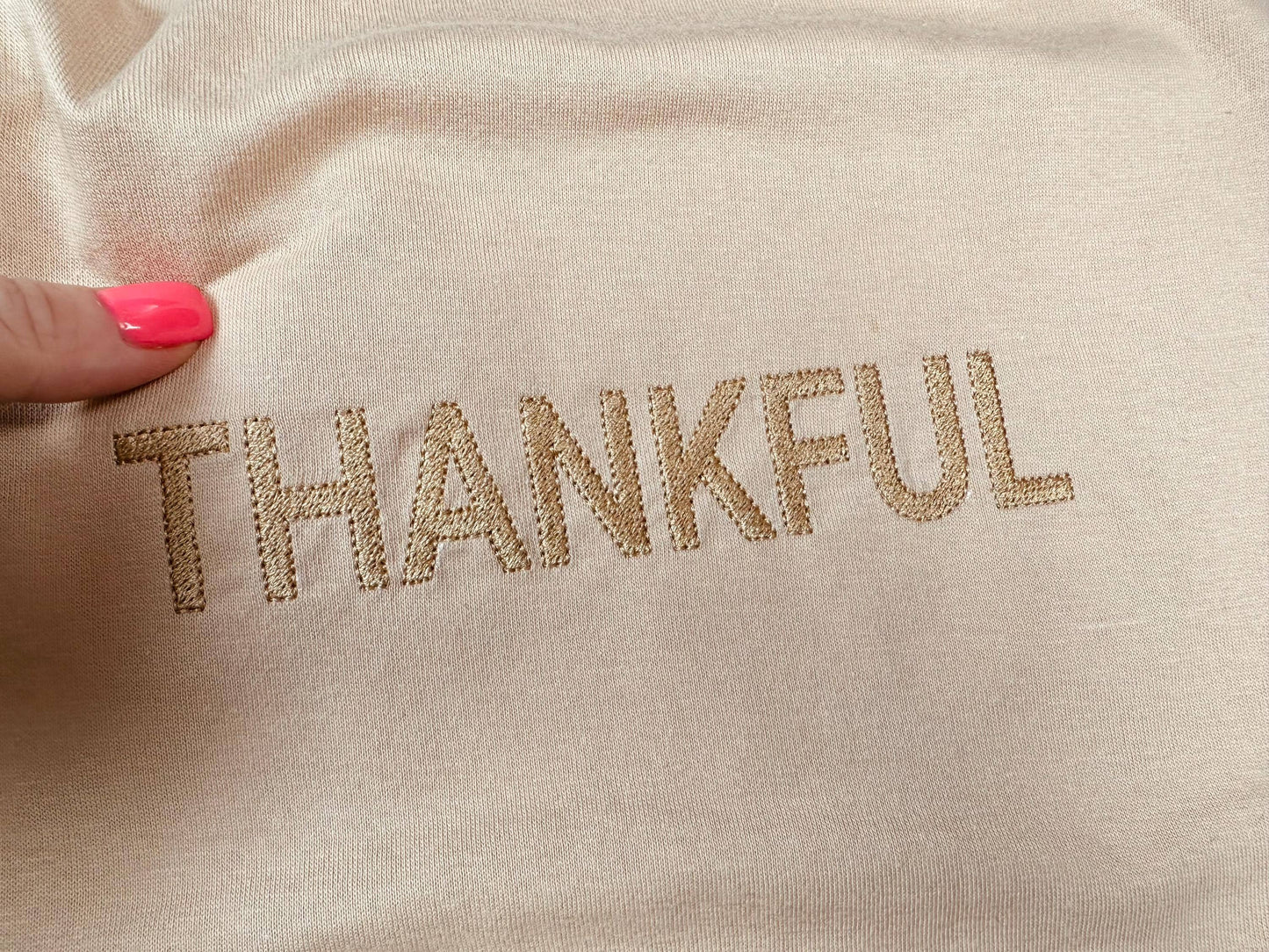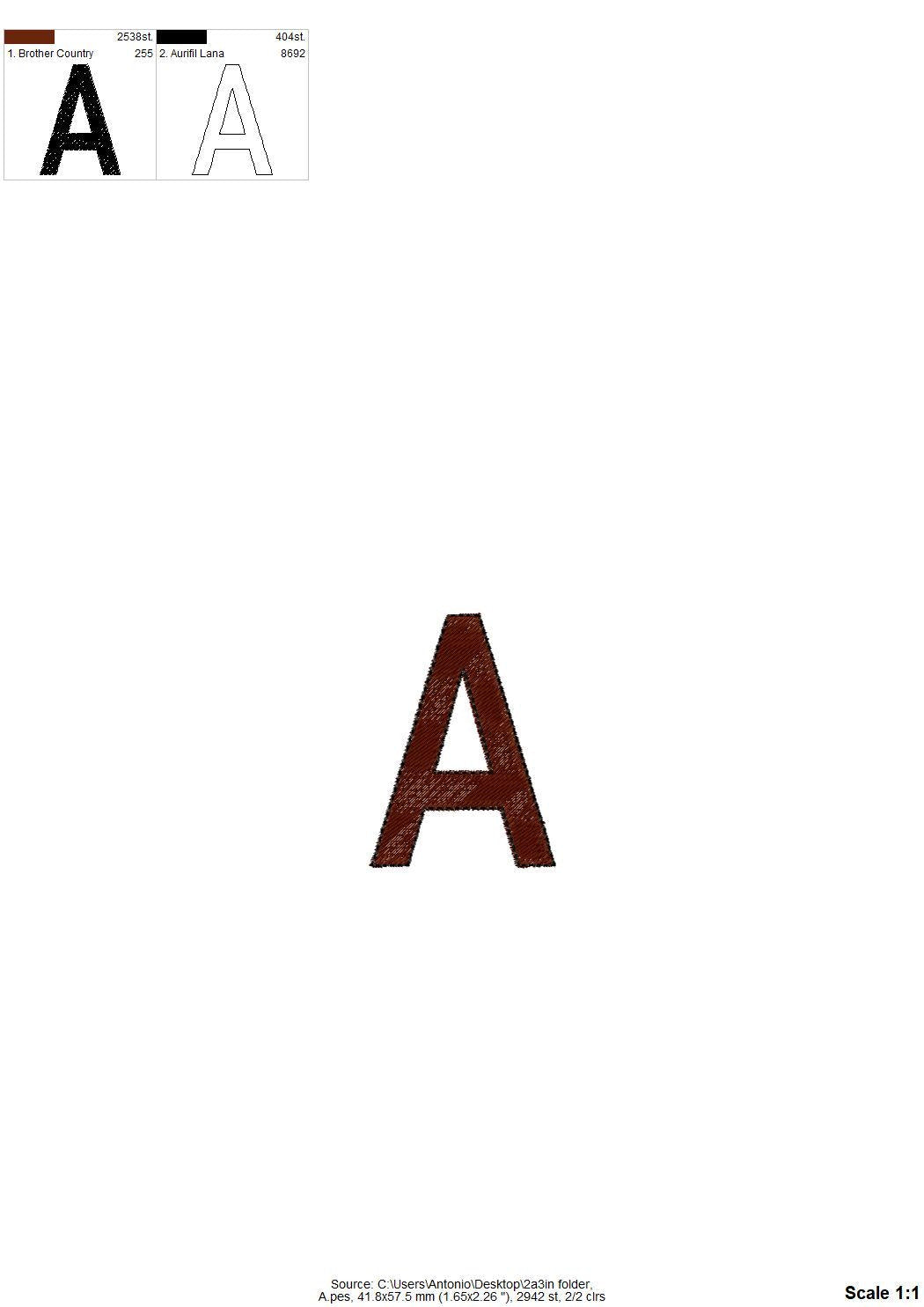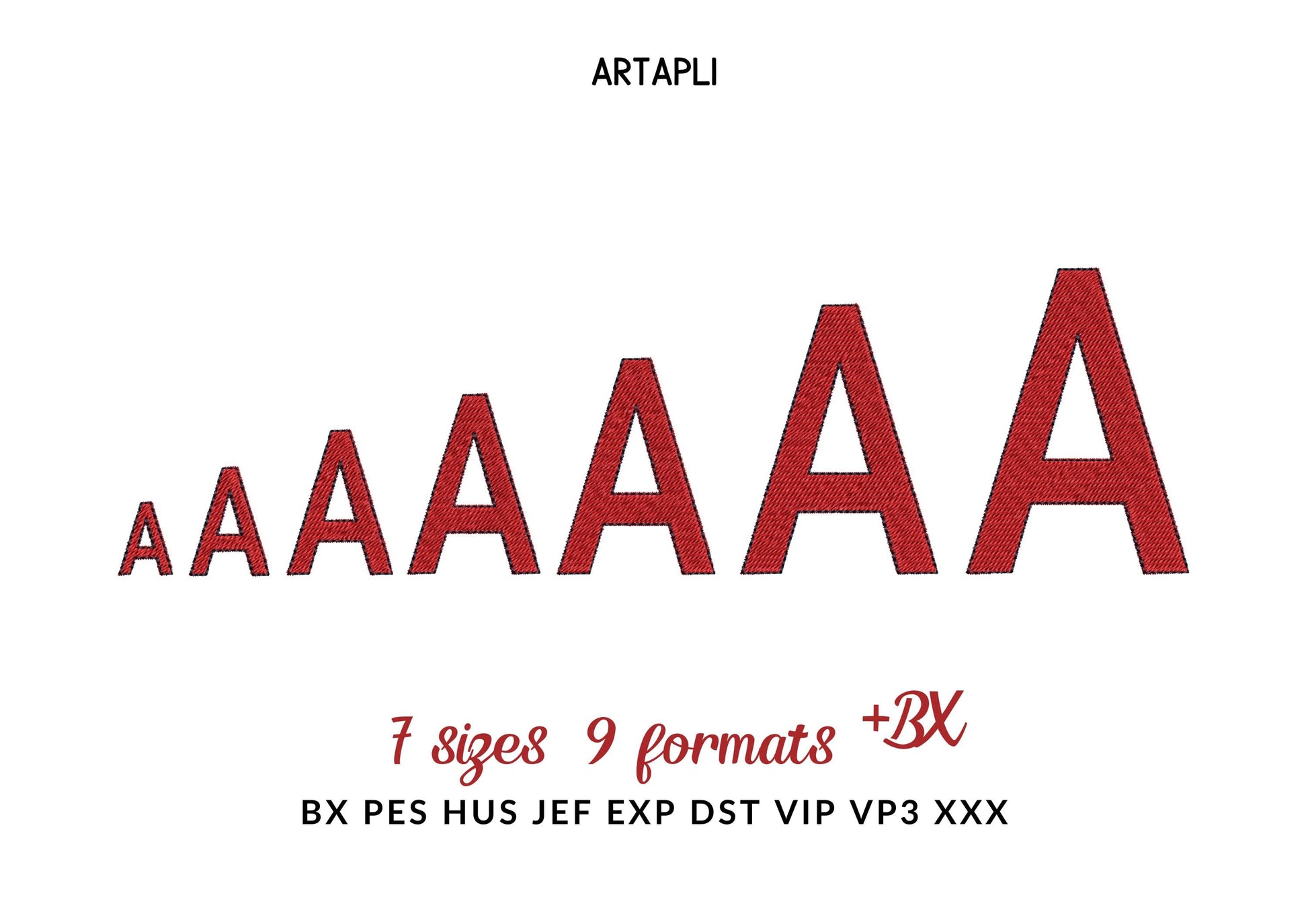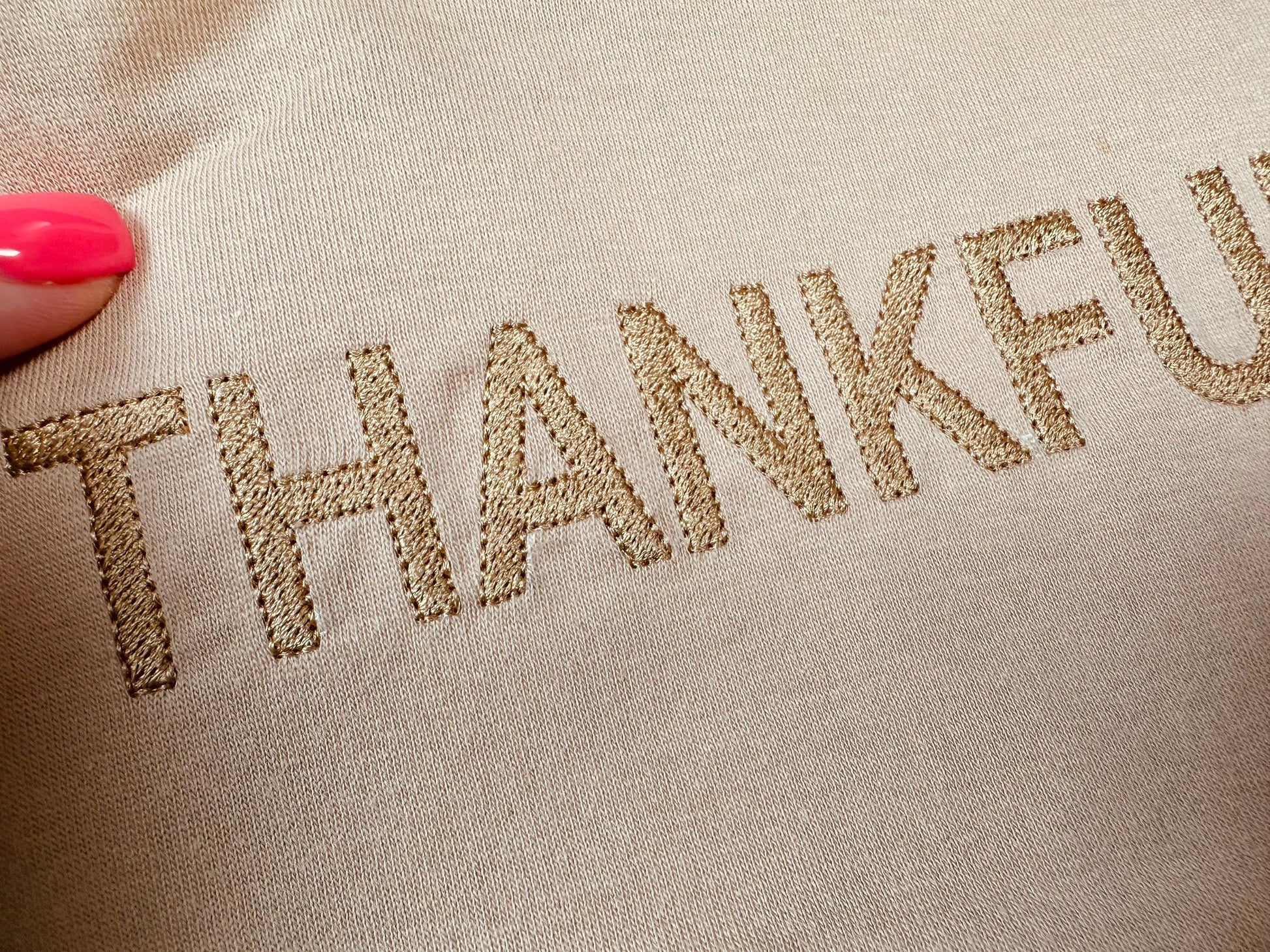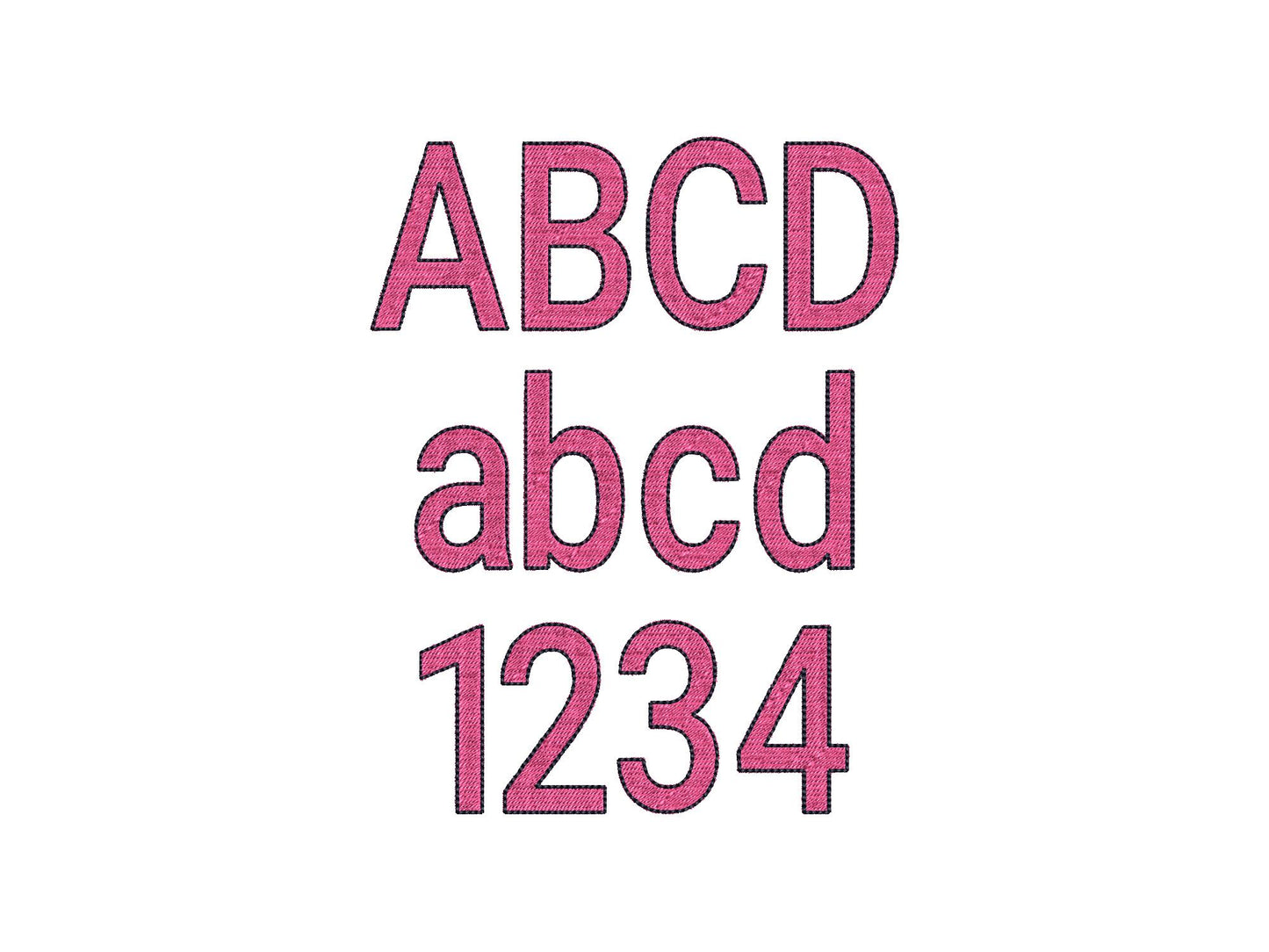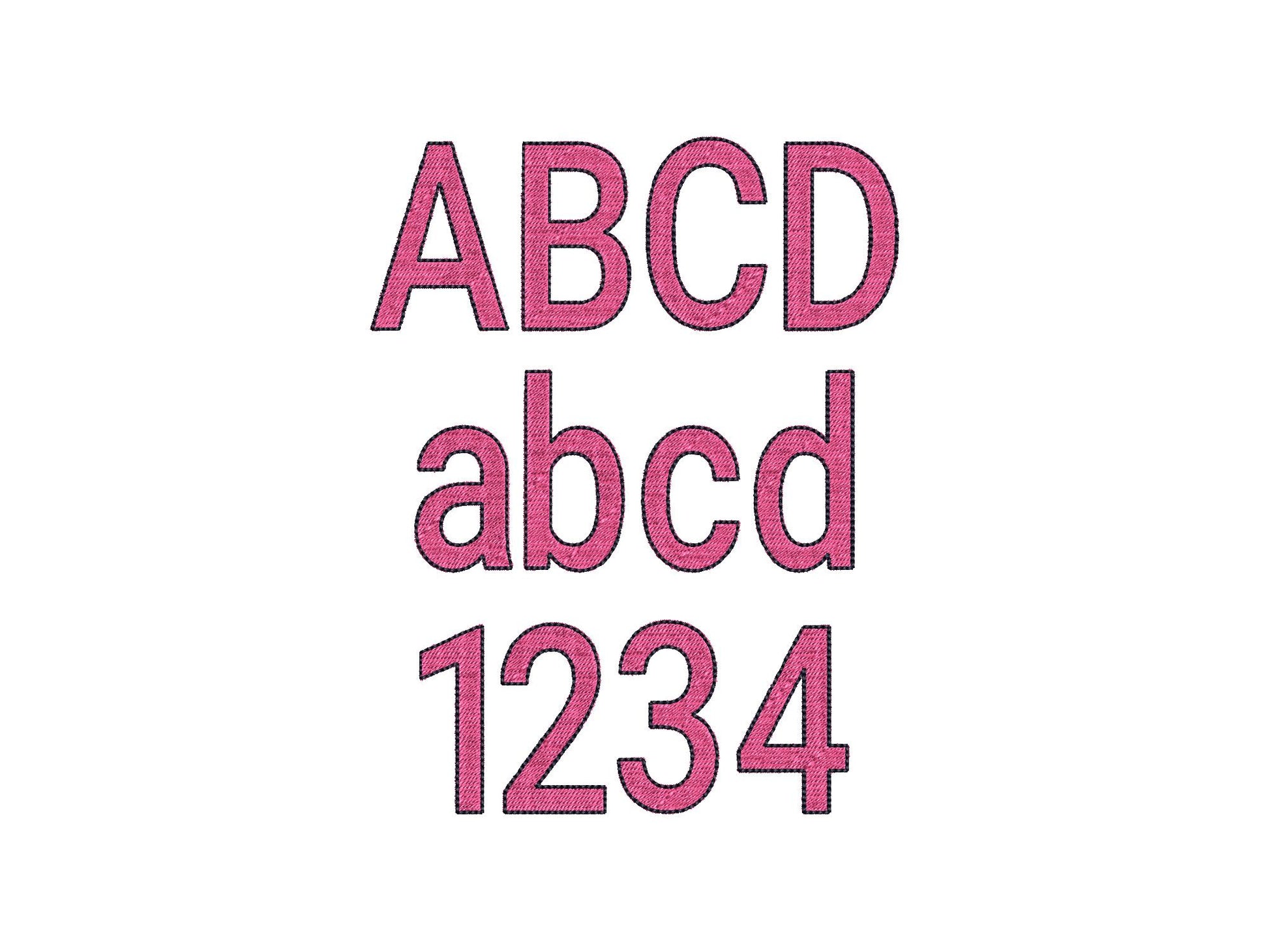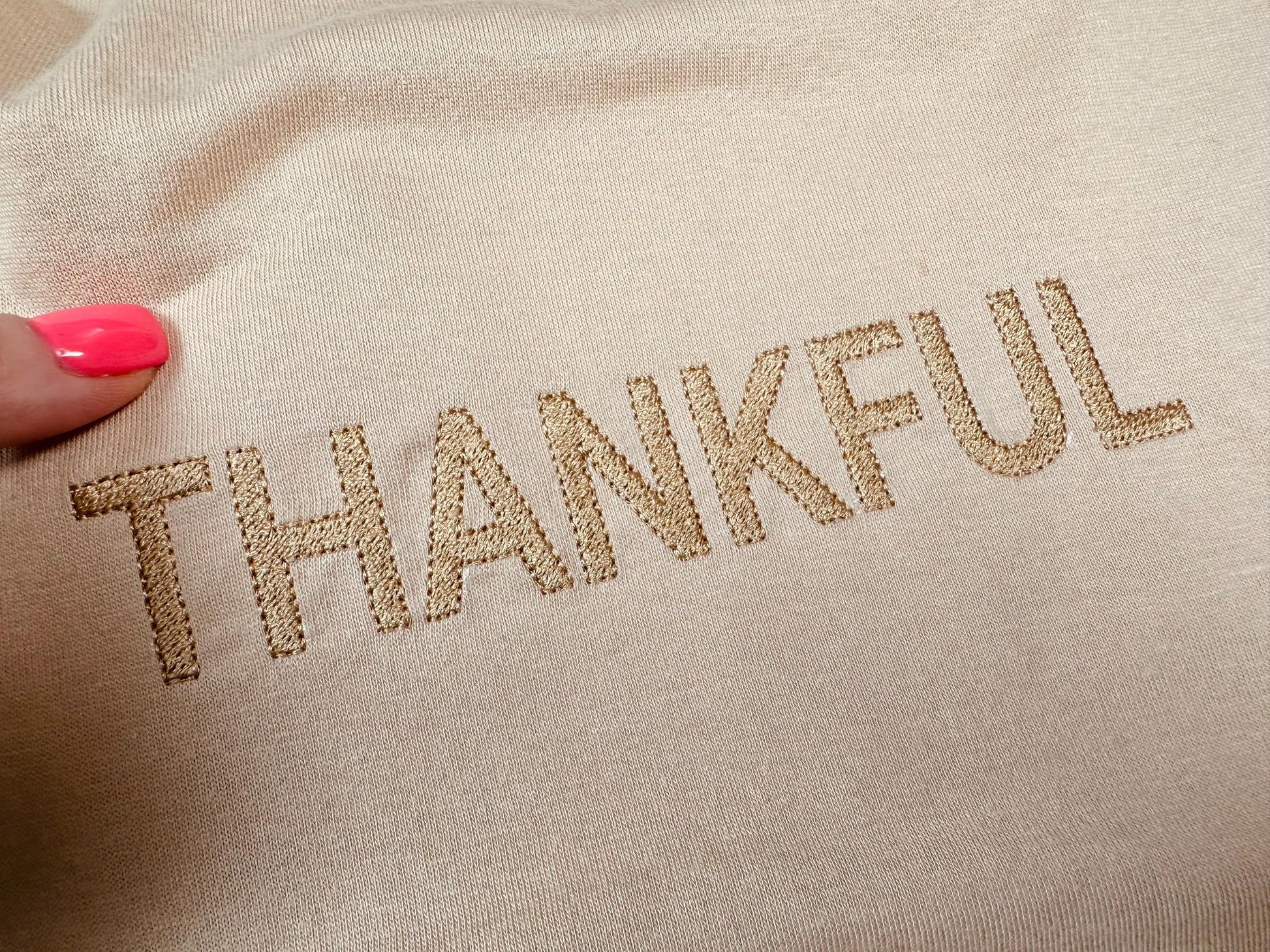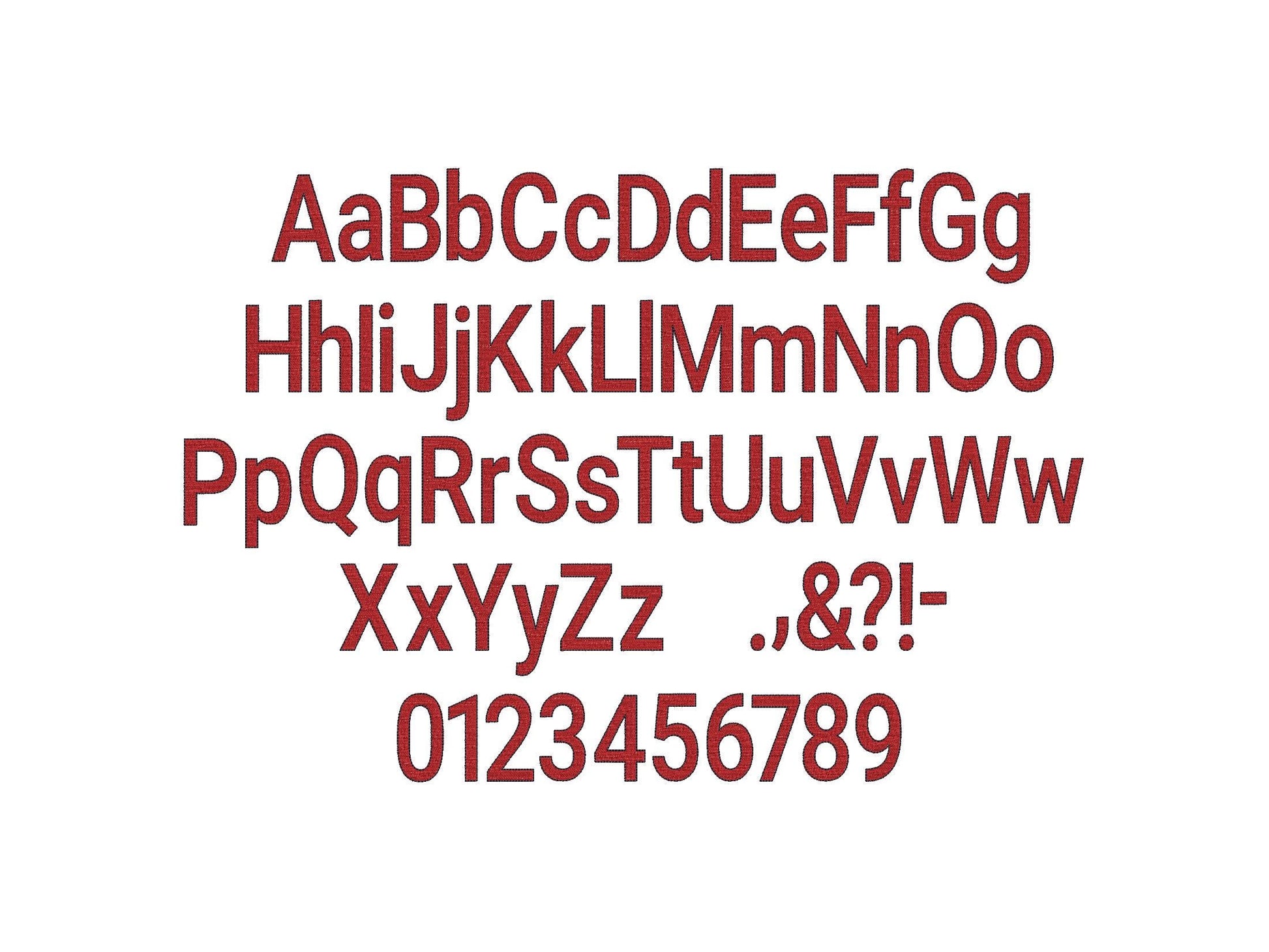
Or click to open the linkA block font in fill stitch with an outline, in small sizes. Great for names, monograms, labels and kids' shirts.
Uppercase and lowercase letters, numbers 0 to 9 and punctuation. Seven sizes: 0.8, 1.2, 1.5, 1.9, 2.3, 2.8 and 3.2 inches.